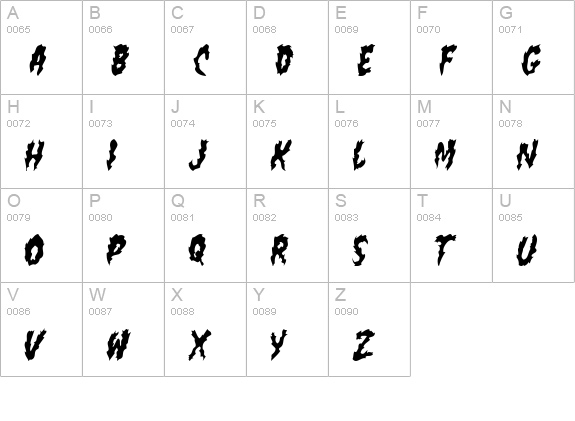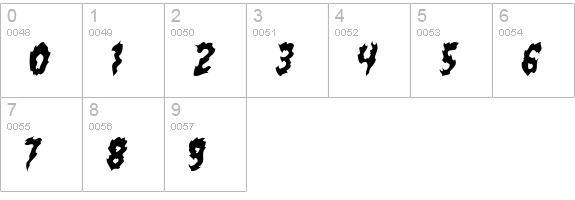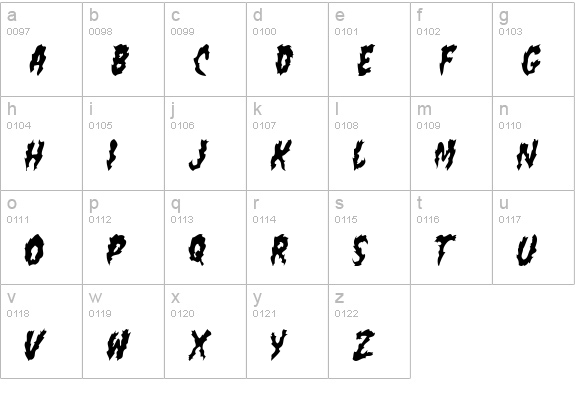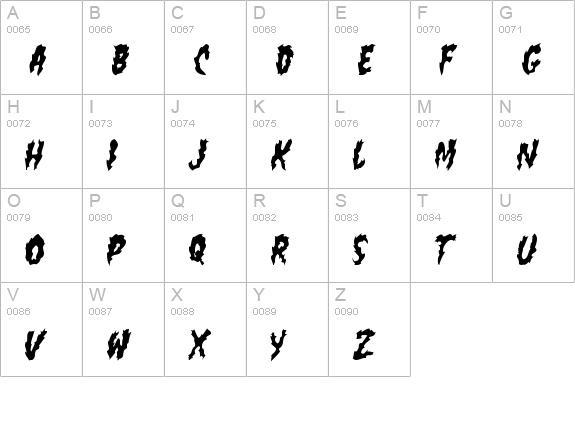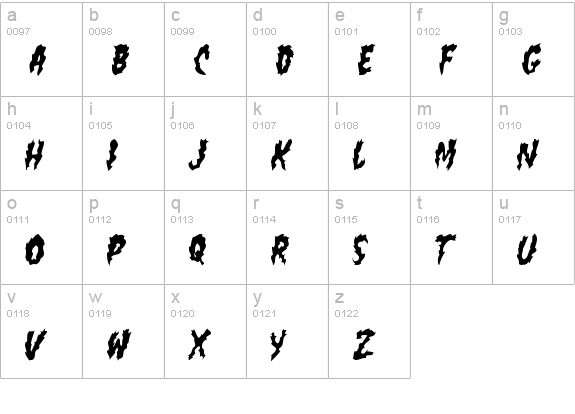
flamin poo Font Details
Introducing the striking and eye-catching Flamin Poo font, a unique and playful typeface that is sure to make your designs stand out from the crowd. This bold and energetic font features fiery letterforms that add a touch of fun and excitement to any project. What sets Flamin Poo font apart is not only its vibrant design but also the fact that it is available for free download at FontsMarket.com. Whether you're working on a poster, logo, website, or any other creative project, Flamin Poo font is a versatile choice that will bring a touch of personality and flair to your work. With its bold style and expressive character, Flamin Poo font is perfect for adding a touch of whimsy and creativity to your designs. Download it for free today at FontsMarket.com and unleash your creativity with this dynamic and attention-grabbing typeface.